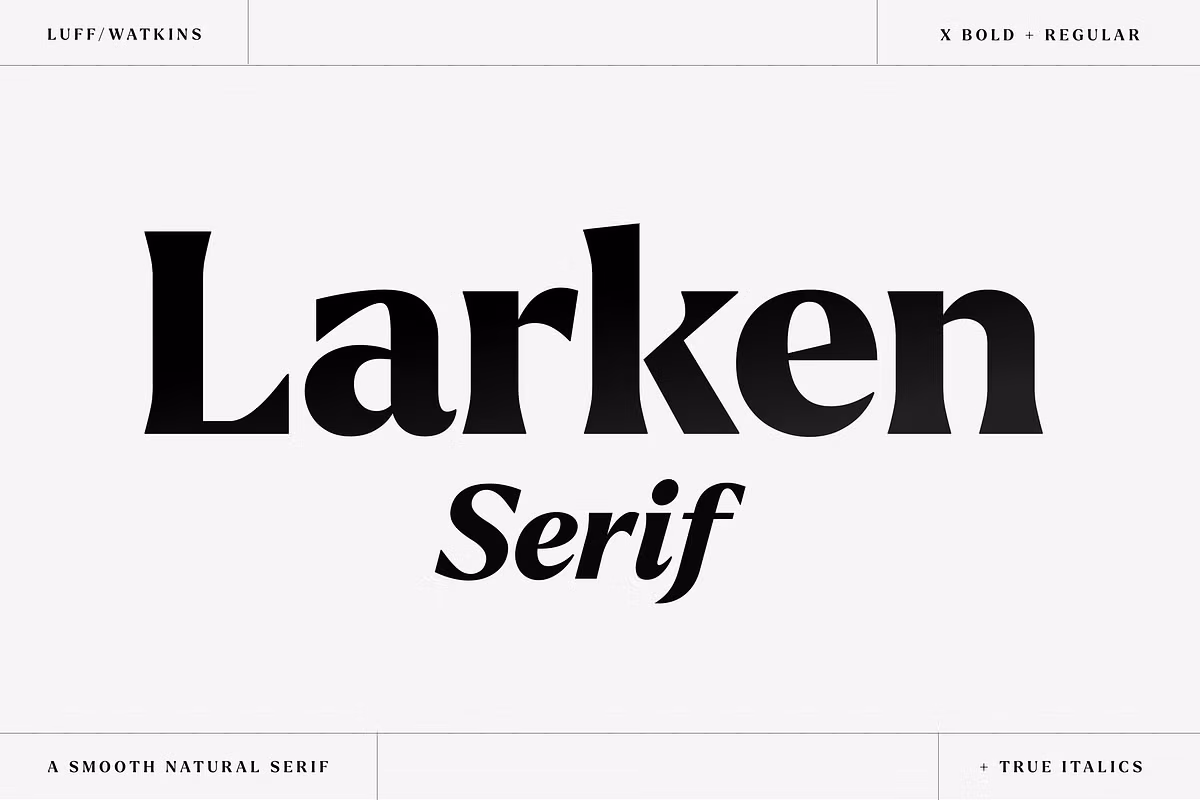
Larken - A Beautiful Serif Font Free Download is a stylish and elegant typeface designed to add sophistication and charm to your designs. With its refined letterforms and balanced serifs, this font is perfect for creating logos, branding materials, editorial designs, invitations, and more. Its timeless design ensures it works seamlessly across both professional and creative projects, offering a sense of luxury and readability. Whether you're designing a high-end brand, a chic website, or a modern event invitation, Larken - A Beautiful Serif Font Free Download lets you experiment with its stunning design in personal projects before purchasing a commercial license. Add beauty and class to your designs with this beautifully crafted serif font.